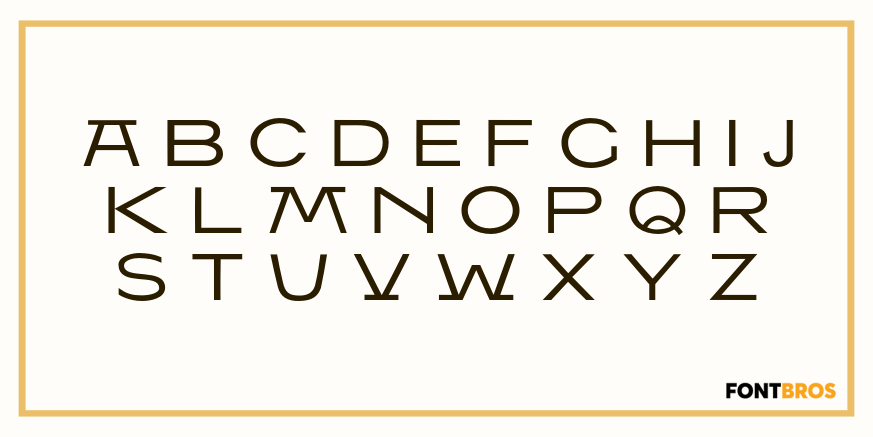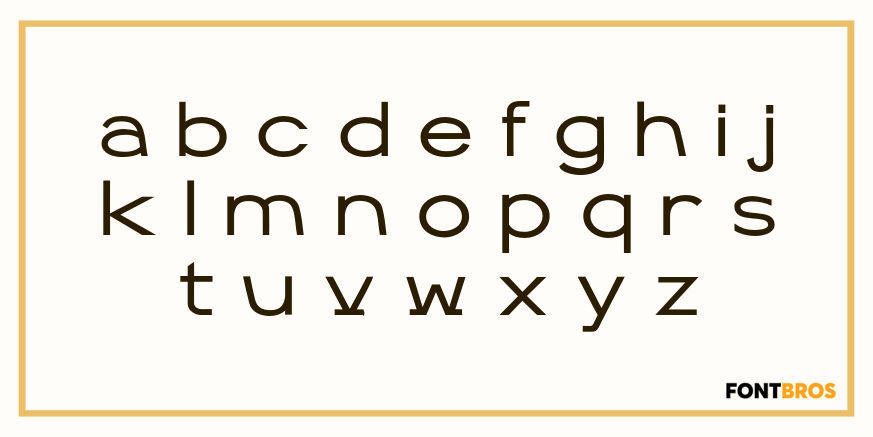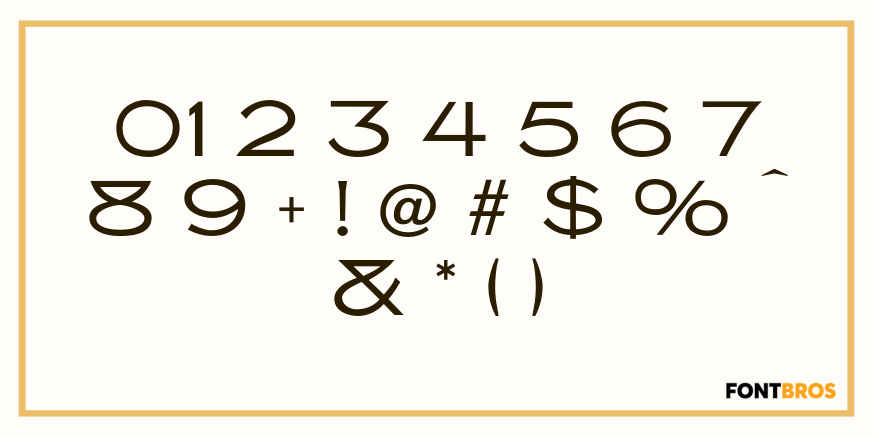
Atlantis
Font Family by Solotype
This is Solotype's alternative sans serif version of the once popular caps-only font Atlanta issued by the Central Type Foundry in St. Louis in 1885.
As we often do, we have created a lowercase, adding to its versatility.